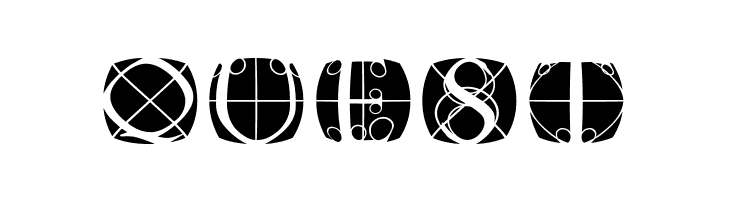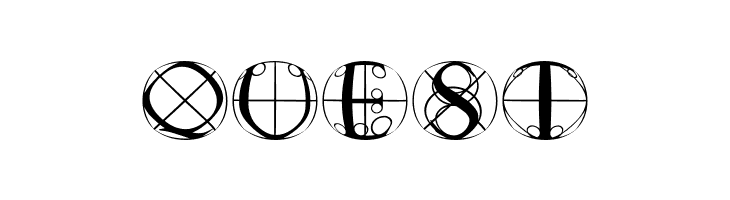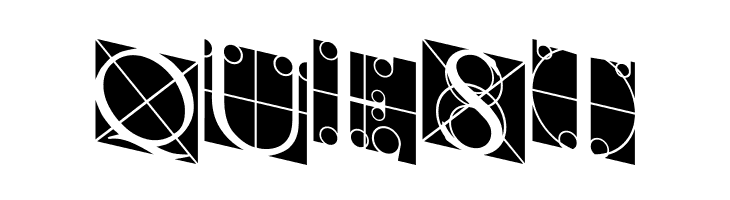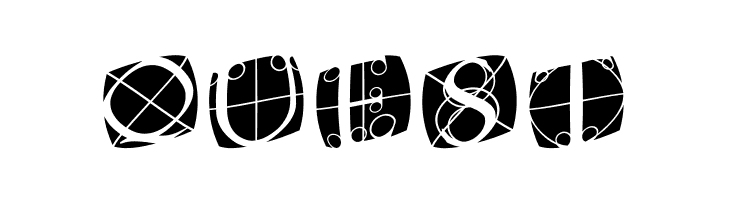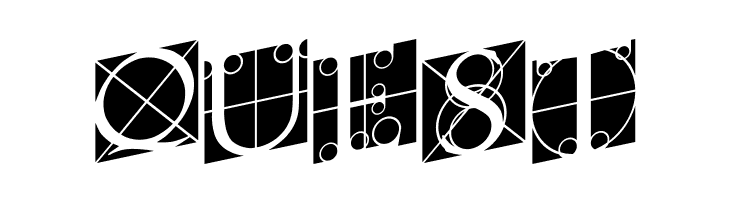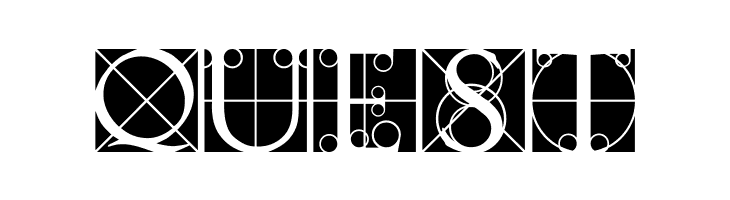
Lilypad Avenue Font
A decorative font with circular, geometric patterns and rounded enclosures.
A decorative font with circular, geometric, and artistic elements.
A decorative, geometric font with uppercase letters in framed designs.
A bold, decorative font with rounded edges and intricate geometric patterns.
A decorative font with circular frames and intricate geometric patterns.
A decorative and geometric font with intricate line work and circular patterns.
An ornate and decorative font with intricate detailing and vintage flair.